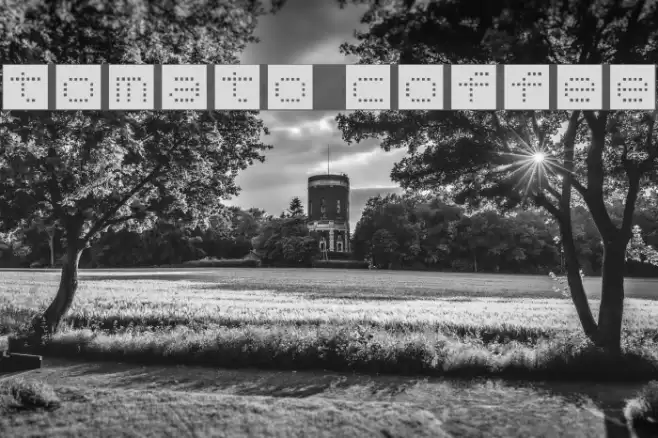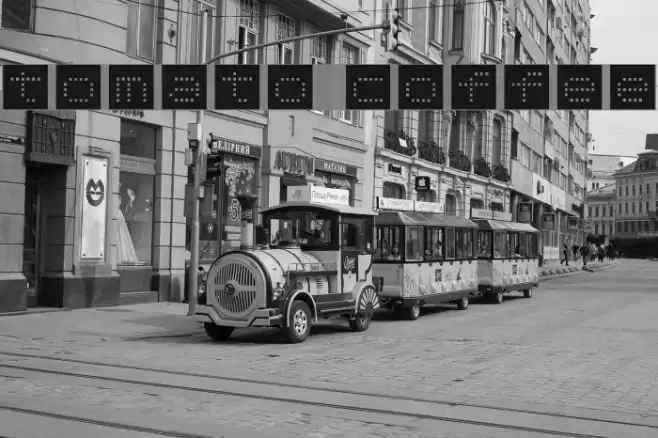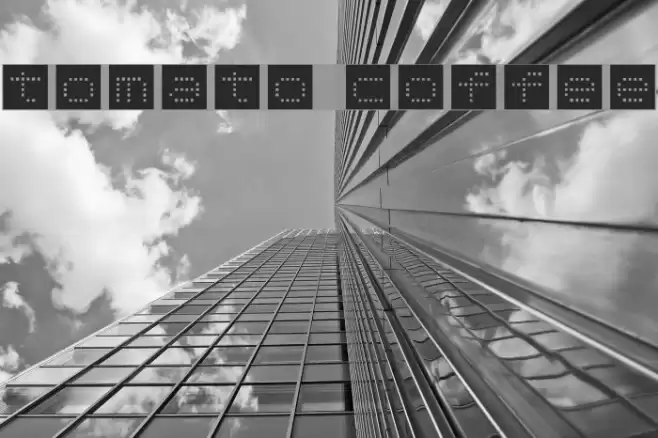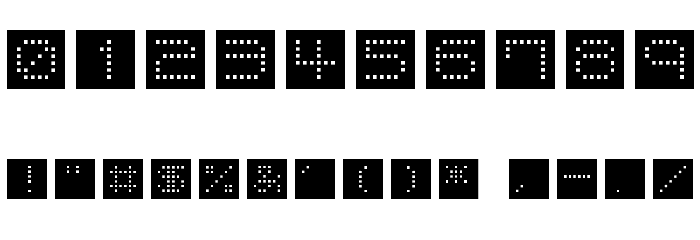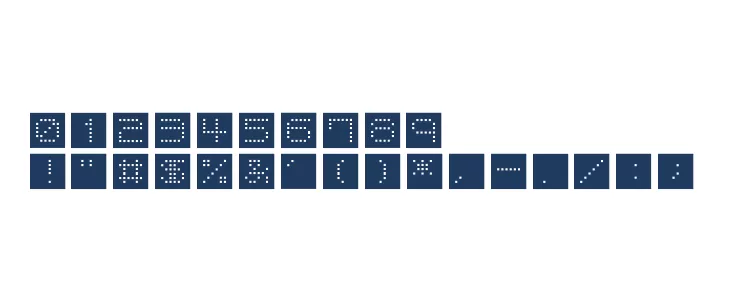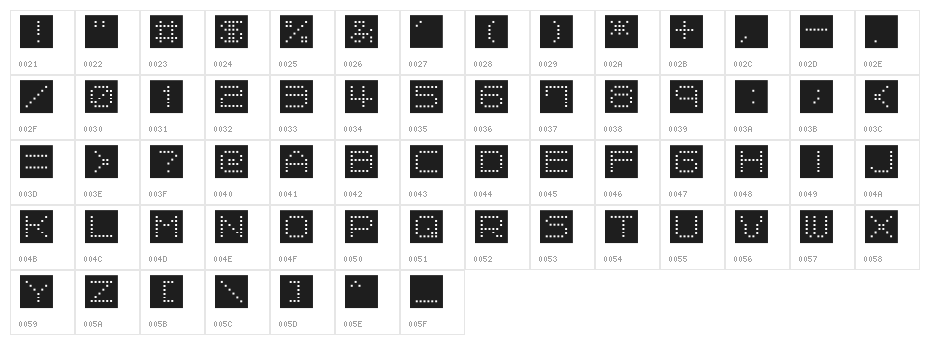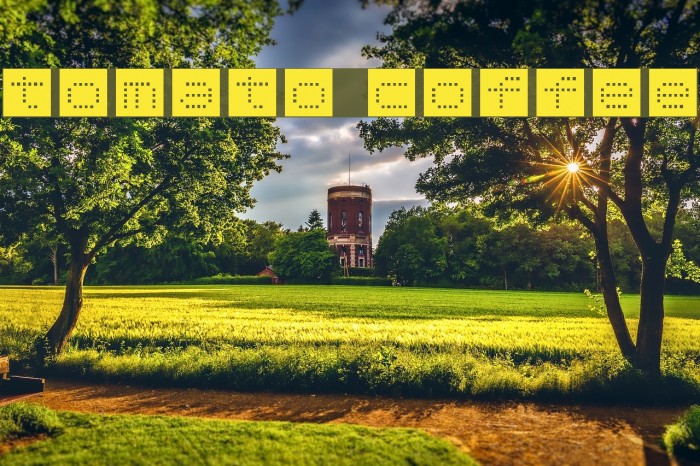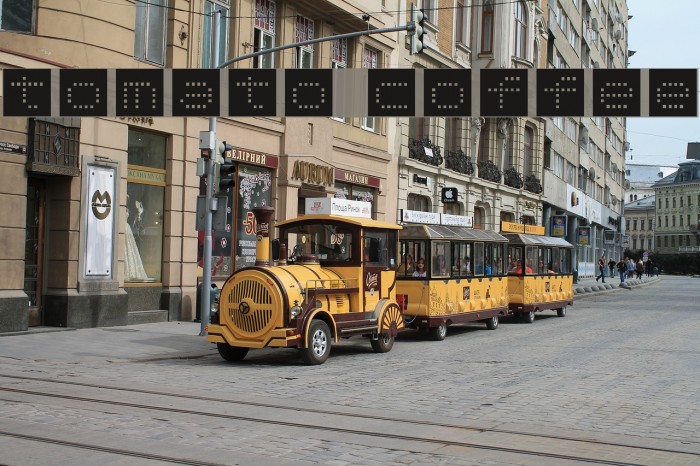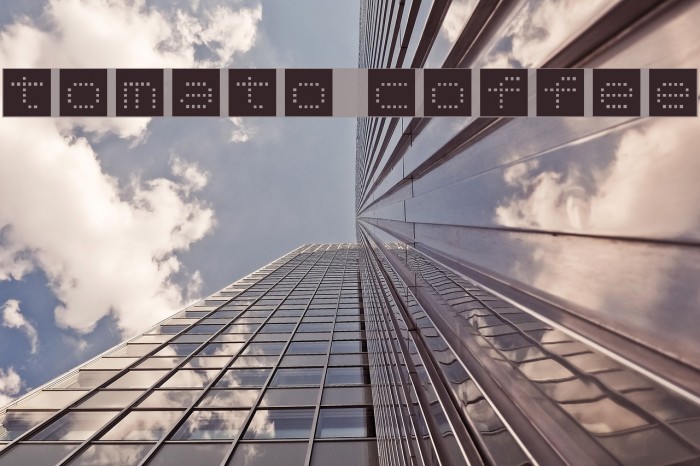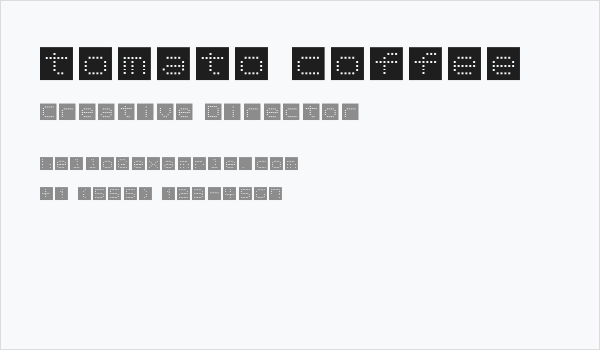
tomato coffee Font
tomato coffee Description
This font features a unique design where each character is composed of a grid of dots, creating a digital or electronic display aesthetic. The characters are evenly spaced within square blocks, giving a structured and uniform appearance. The uppercase and lowercase letters, as well as numbers and special characters, maintain this dot matrix style, reminiscent of retro digital clocks or LED displays. The overall look is modern yet nostalgic, making it suitable for projects that require a tech-savvy or futuristic feel.
A dot matrix style font with a digital display aesthetic from Dotted fonts.